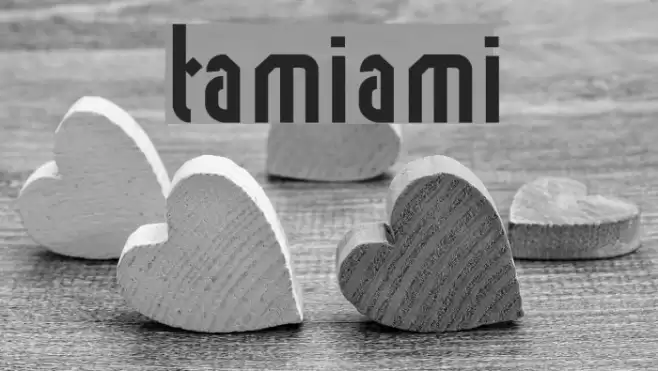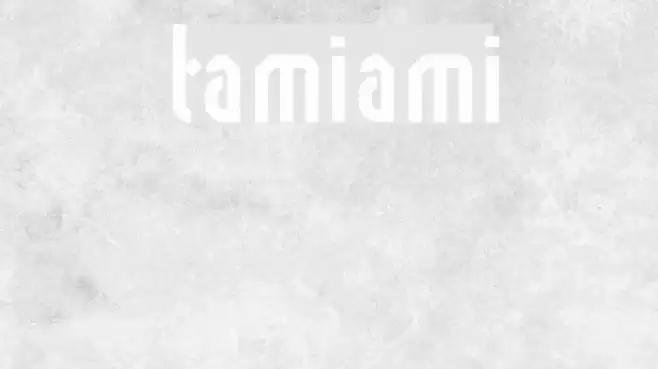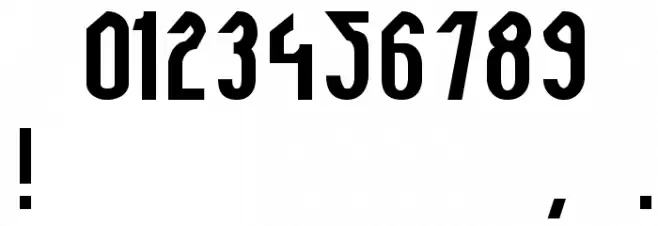
tamiami Font
tamiami Description
This font features a bold, geometric design with a strong presence. The characters are constructed with sharp angles and straight lines, giving it a futuristic and industrial feel. The uppercase letters are particularly striking, with unique shapes that make each character stand out. The lowercase letters maintain the same geometric style, ensuring consistency throughout the typeface. The numbers and special characters are designed to match the boldness and angularity of the letters, making this font a cohesive choice for any project that requires a modern and edgy look.
A bold, geometric font with a futuristic and industrial style from Uncategorized fonts.
- Proposed Projects: Ideal for branding, posters, and headlines that require a modern and edgy aesthetic.